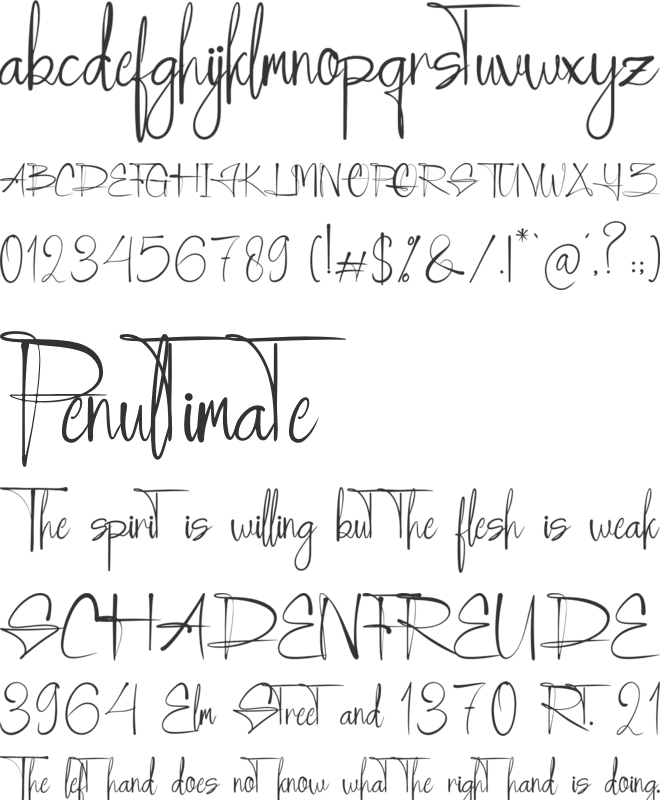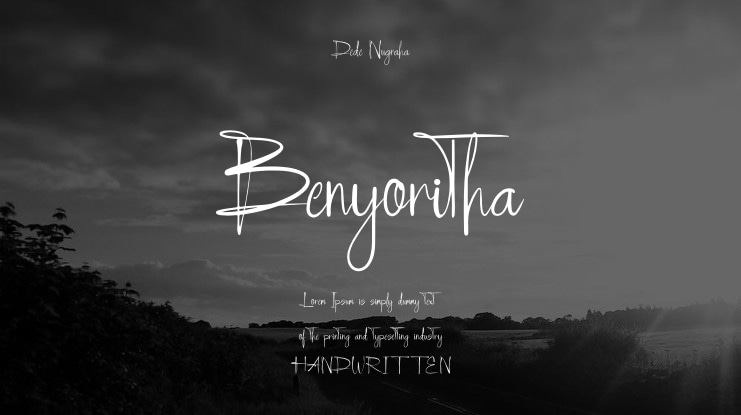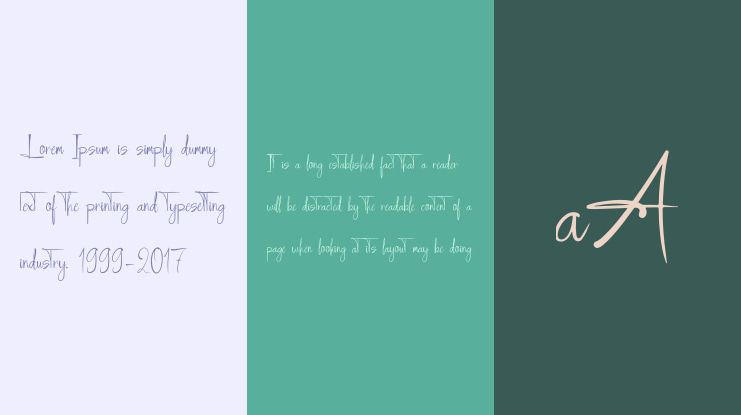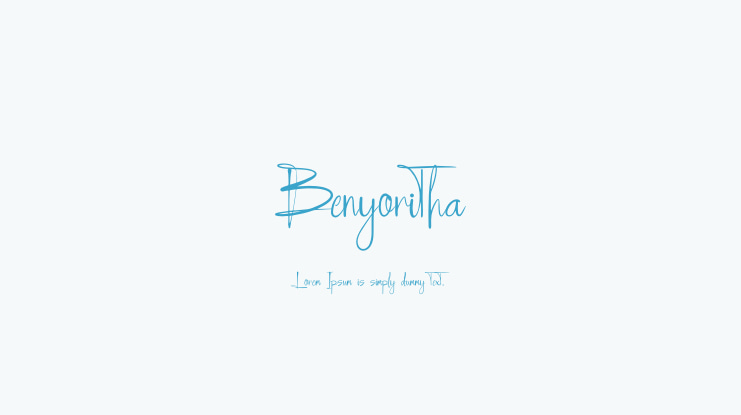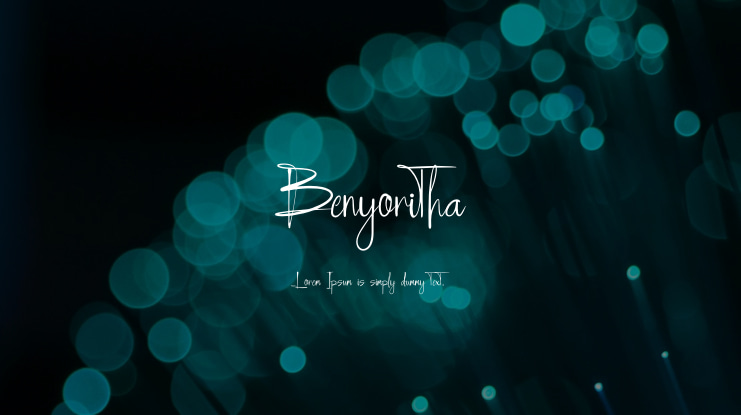
Benyoritha | Handwritten Script Font is ideal for various projects including logos, branding, homeware designs, product packaging, mugs, quotes, posters, shopping bags, t-shirts, book covers, name cards, invitations, greeting cards, labels, photography, watermarks, special events, and more projects that require an elegant script font.